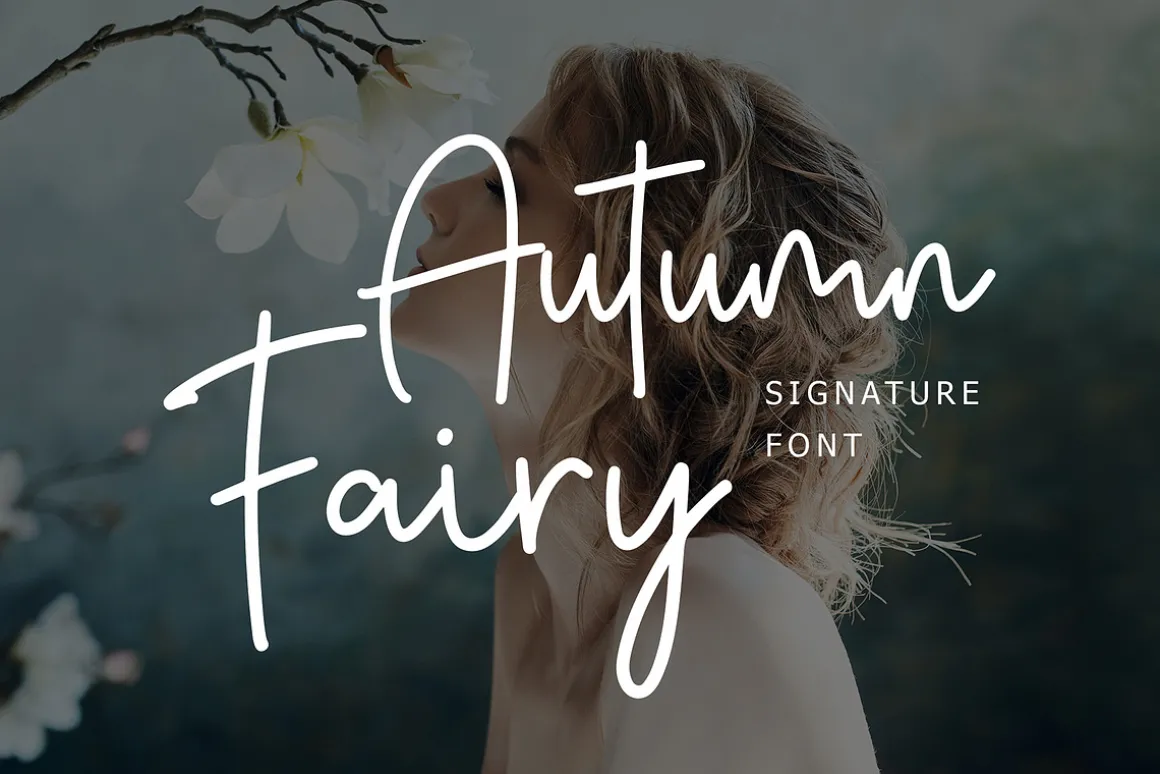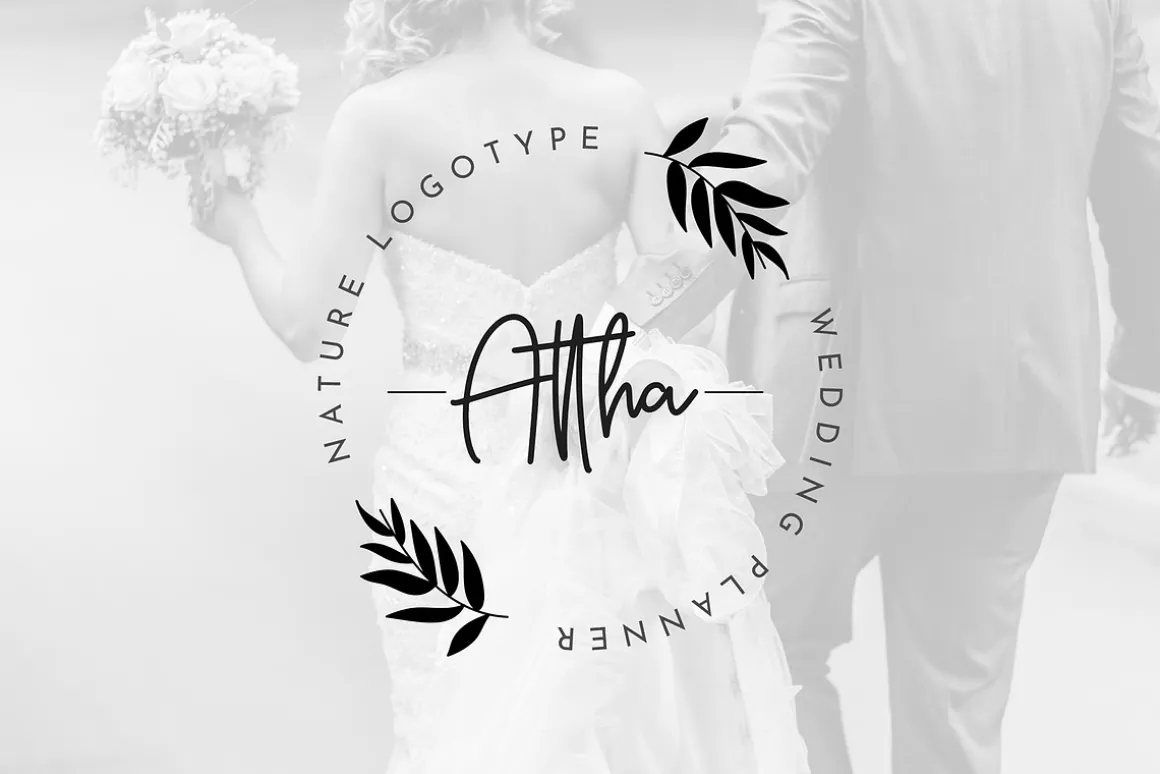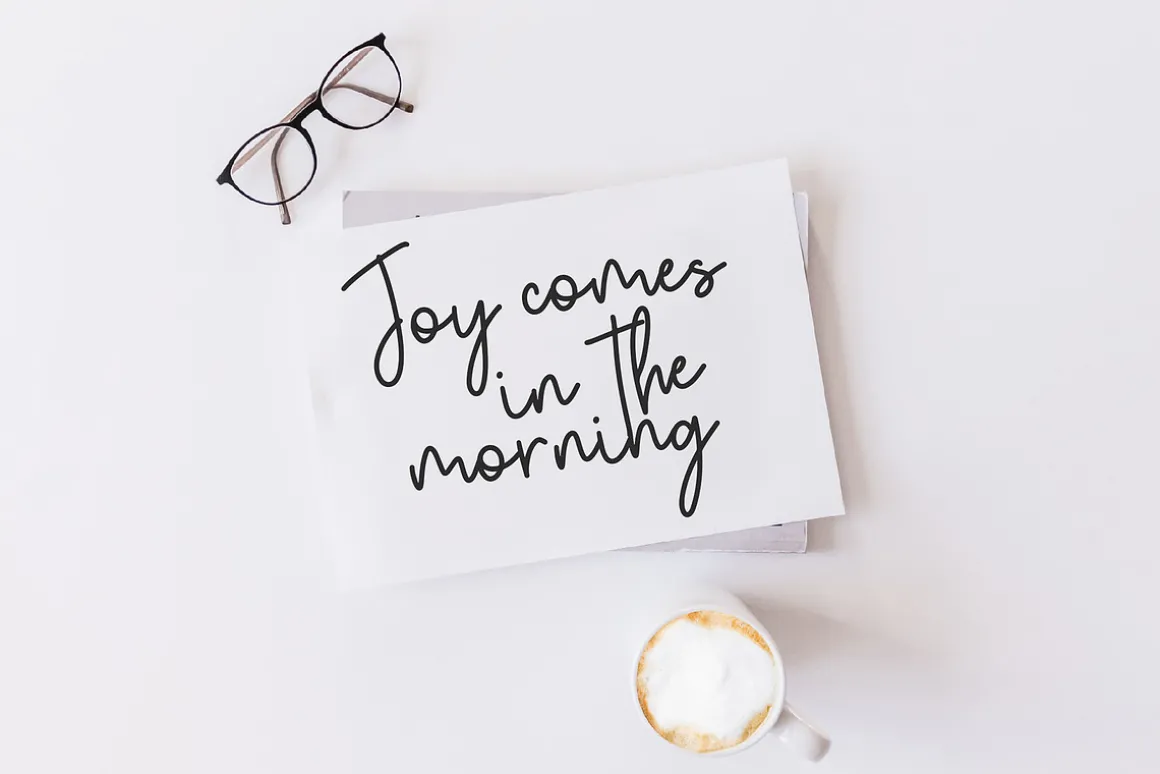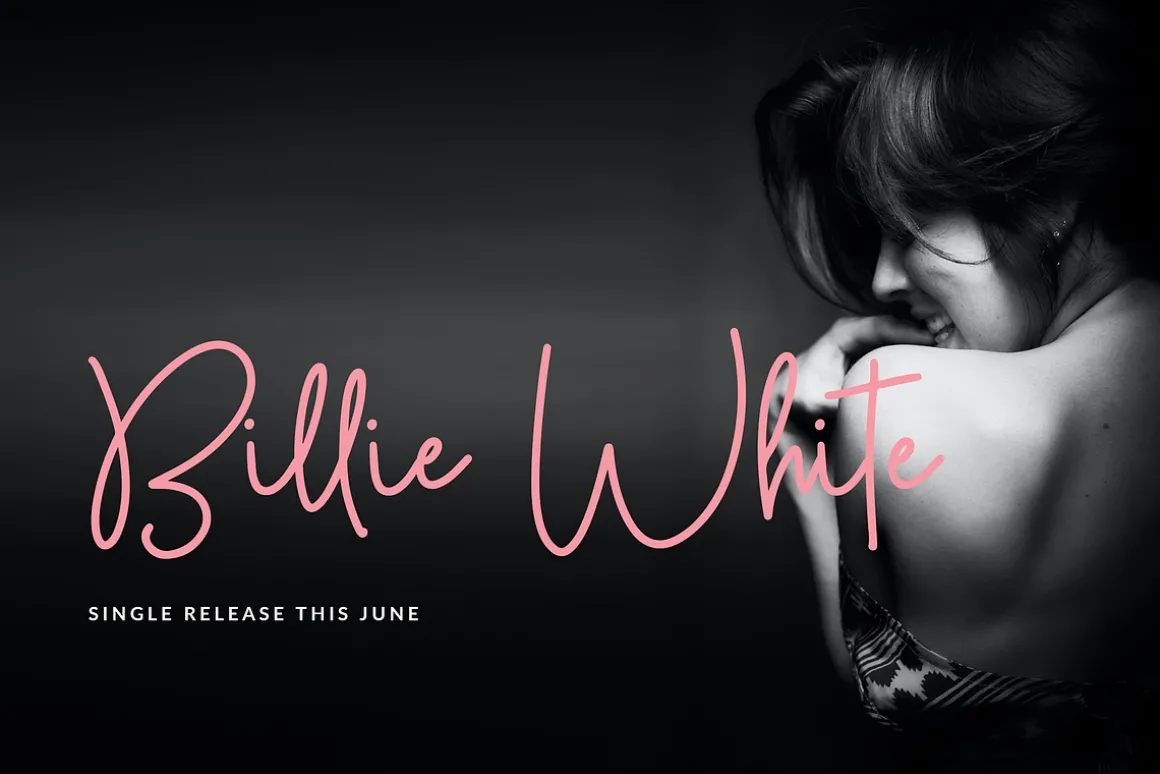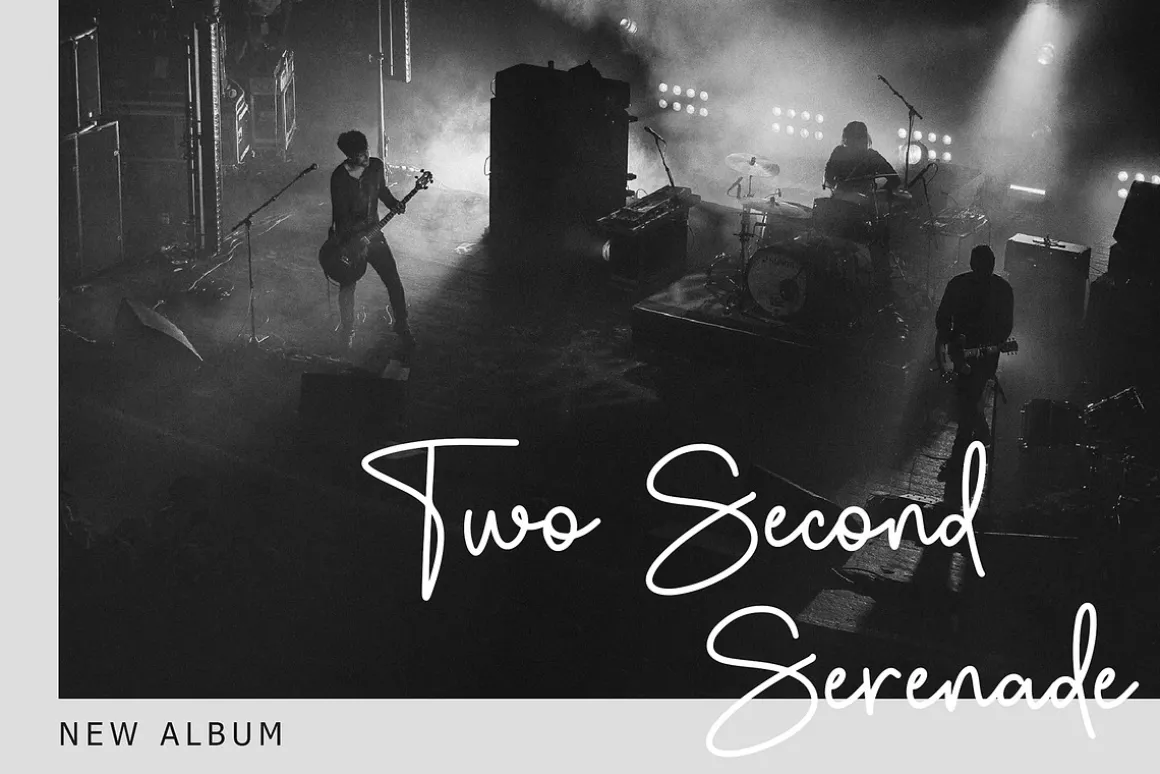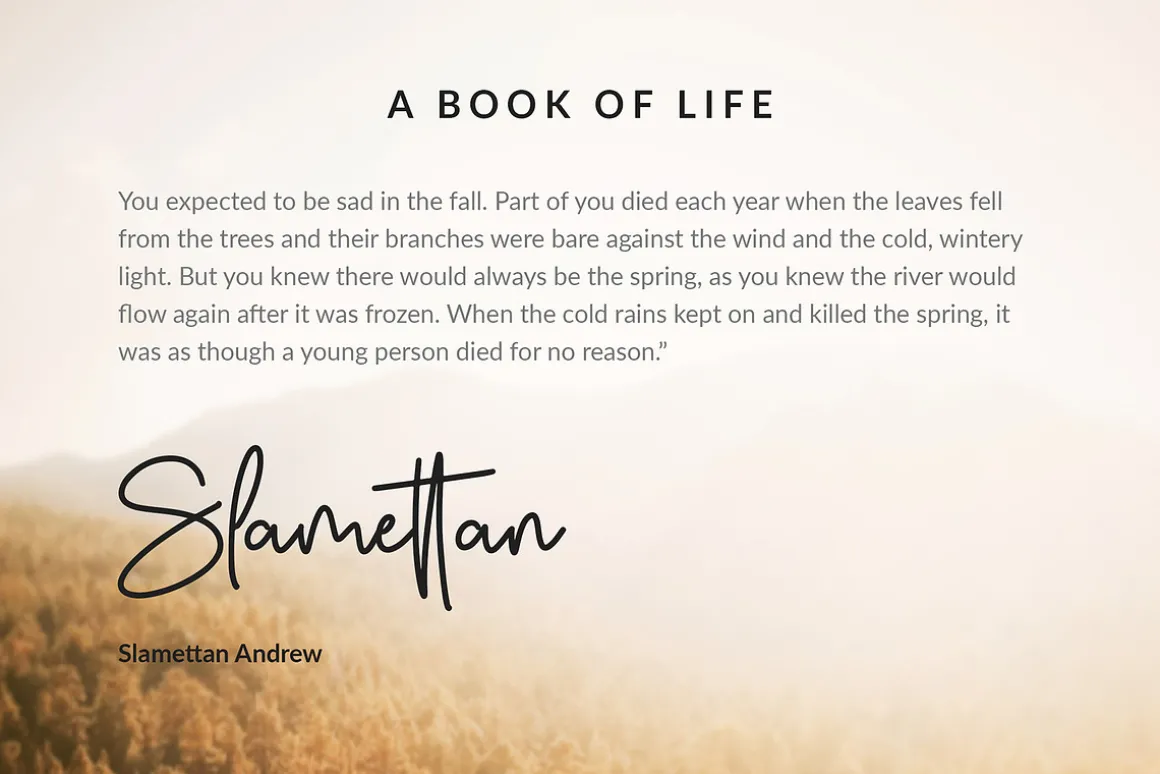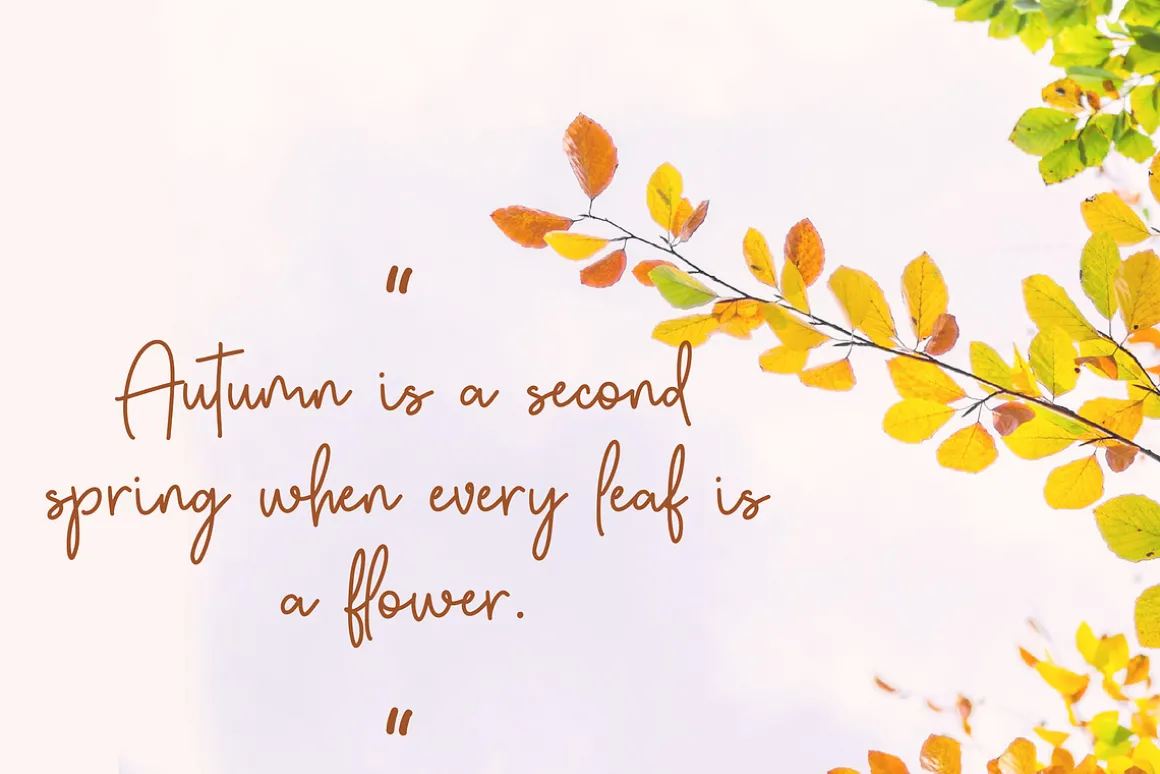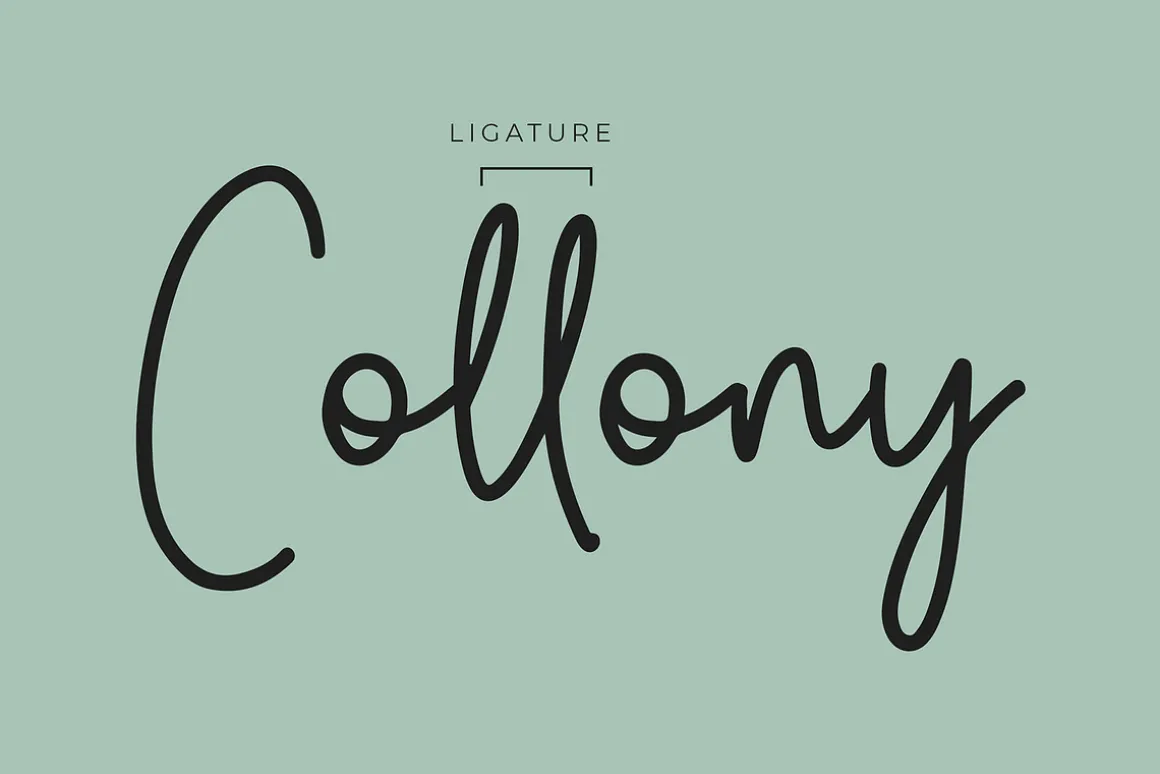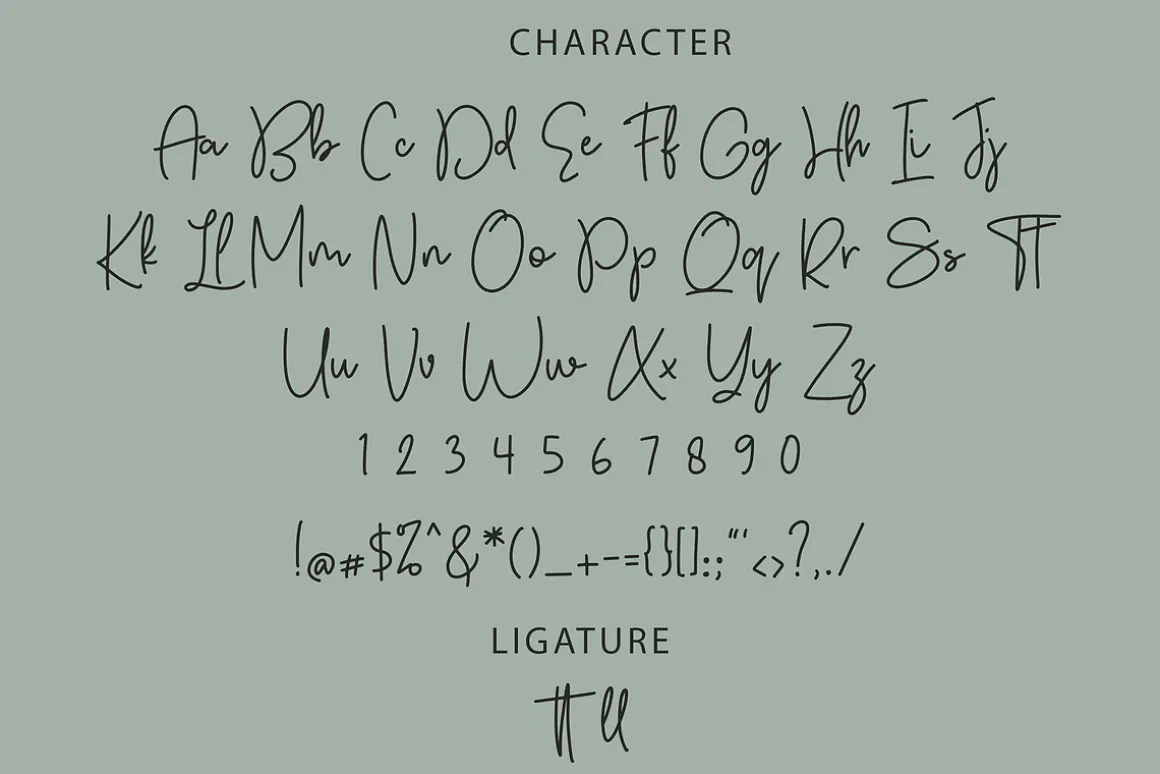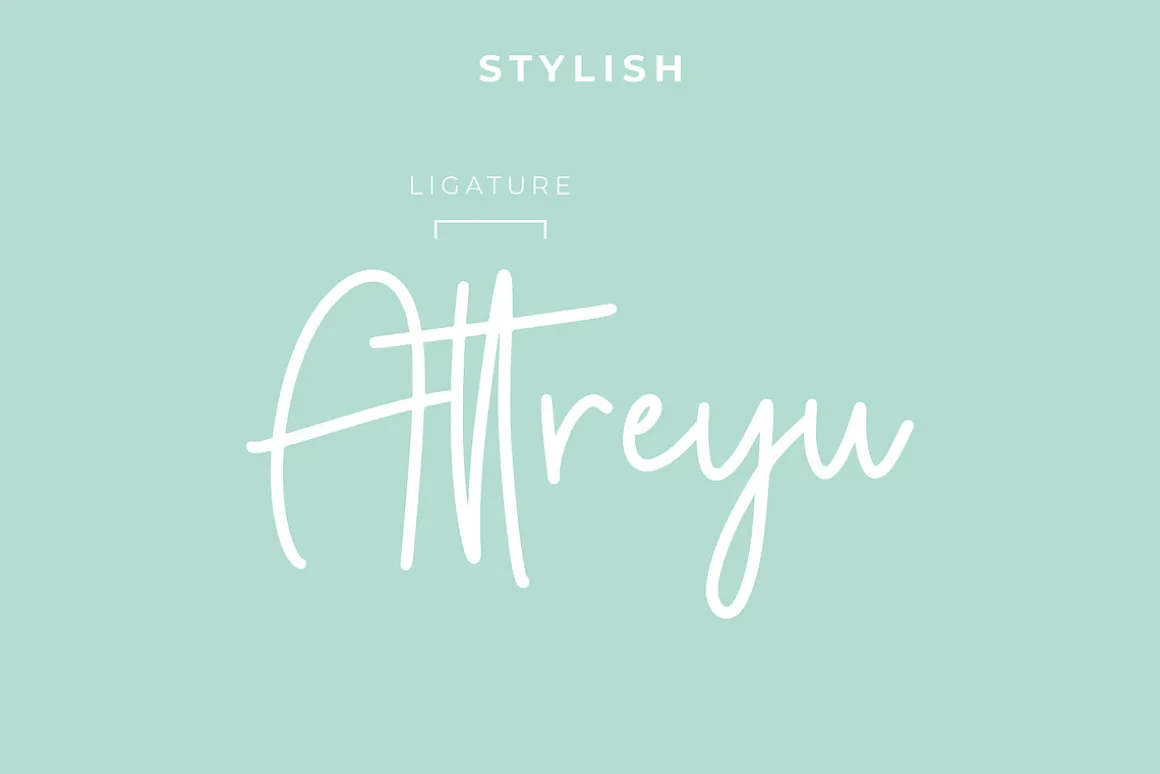
Autumn Fairy Signature Monoline Script is a modern look of Script font, can make your text appear elegant, luxurious, and modern signature font!
Autumn Fairy is perfect for branding projects, logo, wedding designs, social media posts, advertisements, product packaging, T-shirt design, product designs, label, photography, watermark, invitation, stationery, and any projects.
- Ligature